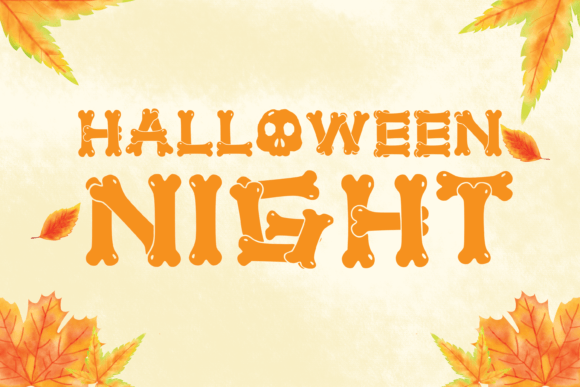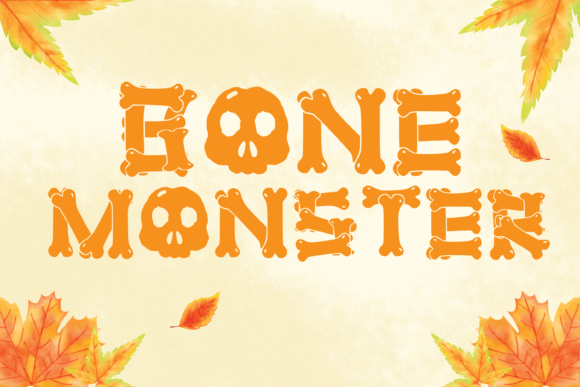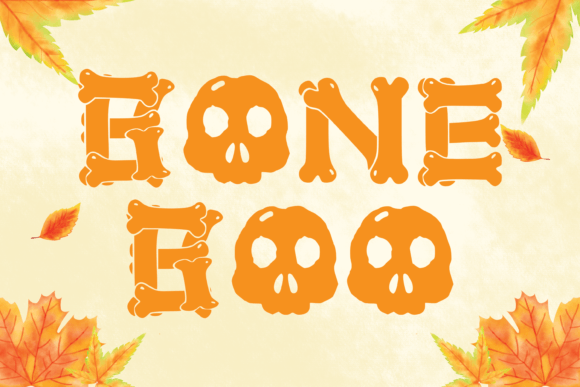
Bone Boo Font: Unleash the Spooky Charm in Your Designs
Are you ready to add a dash of eerie elegance to your designs? Look no further than Bone Boo, a hauntingly delightful font that will transport your creations to a world of mystery and playfulness. Inspired by the contours of skeletal forms, Bone Boo is the perfect addition to your font collection if you’re looking to create Halloween-themed projects, spine-chilling events, or horror-themed creations that will leave a lasting impression.
The Inspiration Behind Bone Boo
Bone Boo is more than just a font – it’s an experience. Each character is meticulously designed to radiate an uncanny charm, blending the perfect balance of mystery and playfulness. The bone-inspired elements woven into the alphabet lend a uniquely haunting essence, making it an ideal choice for designers and crafters looking to add a touch of spookiness to their work.
Perfect for Halloween and Horror-Themed Projects
Halloween is just around the corner, and with Bone Boo, you’ll be able to create designs that will make your audience shiver with delight. From poster art to invitations, decorations to social media graphics, Bone Boo is the perfect font to inject a celebratory spookiness into your creations. Whether you’re designing for a horror-themed event, a Halloween party, or simply want to add a touch of eerie elegance to your work, Bone Boo is the perfect choice.
Celebratory Spookiness for All Occasions
Bone Boo is not just limited to Halloween and horror-themed projects. Its unique blend of jubilant scare and jollity makes it perfect for a wide range of creative endeavors. Use it to create:
• Poster art that will grab attention and leave a lasting impression
• Enchanting invitations that will set the tone for a spooky celebration
• Creepy-cute decorations that will add a touch of whimsy to any room
• Social media graphics that will make your audience shiver with delight
Custom Crafted for Designers and Crafters
Bone Boo is custom crafted for designers and crafters who demand an outlandish and atmospheric edge in their work. With its unique blend of spooky charm and playfulness, Bone Boo is the perfect addition to your font collection if you’re looking to:
• Create designs that will stand out from the crowd
• Add a touch of eerie elegance to your work
• Evoking a sense of mystery and intrigue in your audience
Key Features of Bone Boo Font
So, what makes Bone Boo font so special? Here are some of its key features:
• Hauntingly delightful design inspired by skeletal forms
• Uncanny charm that blends mystery and playfulness
• Bone-inspired elements that lend a uniquely haunting essence
• Perfect for Halloween-themed projects, spine-chilling events, and horror-themed creations
• Celebratory spookiness that’s suitable for a wide range of creative endeavors
Get Ready to Get Your Creative Bones Dancing!
With Bone Boo font, you’ll be able to unleash your creativity and bring a touch of spooky charm to your designs. Whether you’re a designer, crafter, or simply someone who loves the eerie and unknown, Bone Boo is the perfect addition to your font collection. So, what are you waiting for? Get ready to get your creative bones dancing with Bone Boo font!
In conclusion, Bone Boo font is a game-changer for designers and crafters looking to add a touch of spooky charm to their work. With its hauntingly delightful design, uncanny charm, and bone-inspired elements, Bone Boo is the perfect choice for Halloween-themed projects, spine-chilling events, and horror-themed creations. So, don’t miss out on this opportunity to take your designs to the next level. Get Bone Boo font today and start creating designs that will leave a lasting impression!